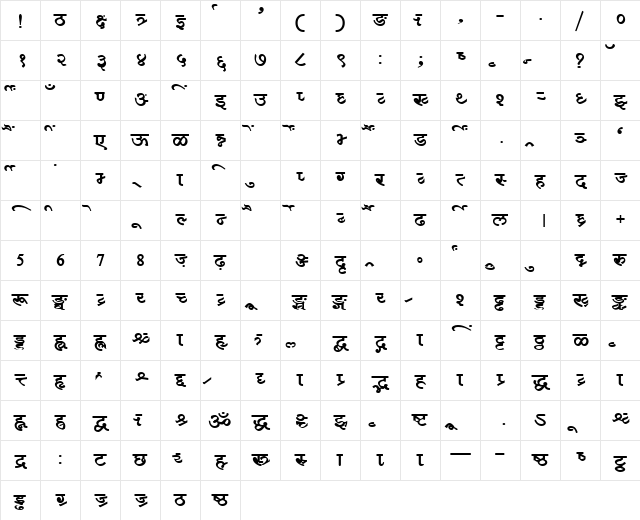
AkrutiDevAkanksha Bold Free Font
AkrutiDevAkanksha Bold
AkrutiDevAkanksha Family
AkrutiDevAkanksha Bold
Complete AkrutiDevAkanksha Bold glyph index. Displaying only characters natively supported by AkrutiDevAkanksha Bold font.
Design Context for AkrutiDevAkanksha
AkrutiDevAkanksha is a composed and adaptable typeface that performs quietly and consistently across a wide range of design contexts. Its bold stroke weight gives it real presence on the page.